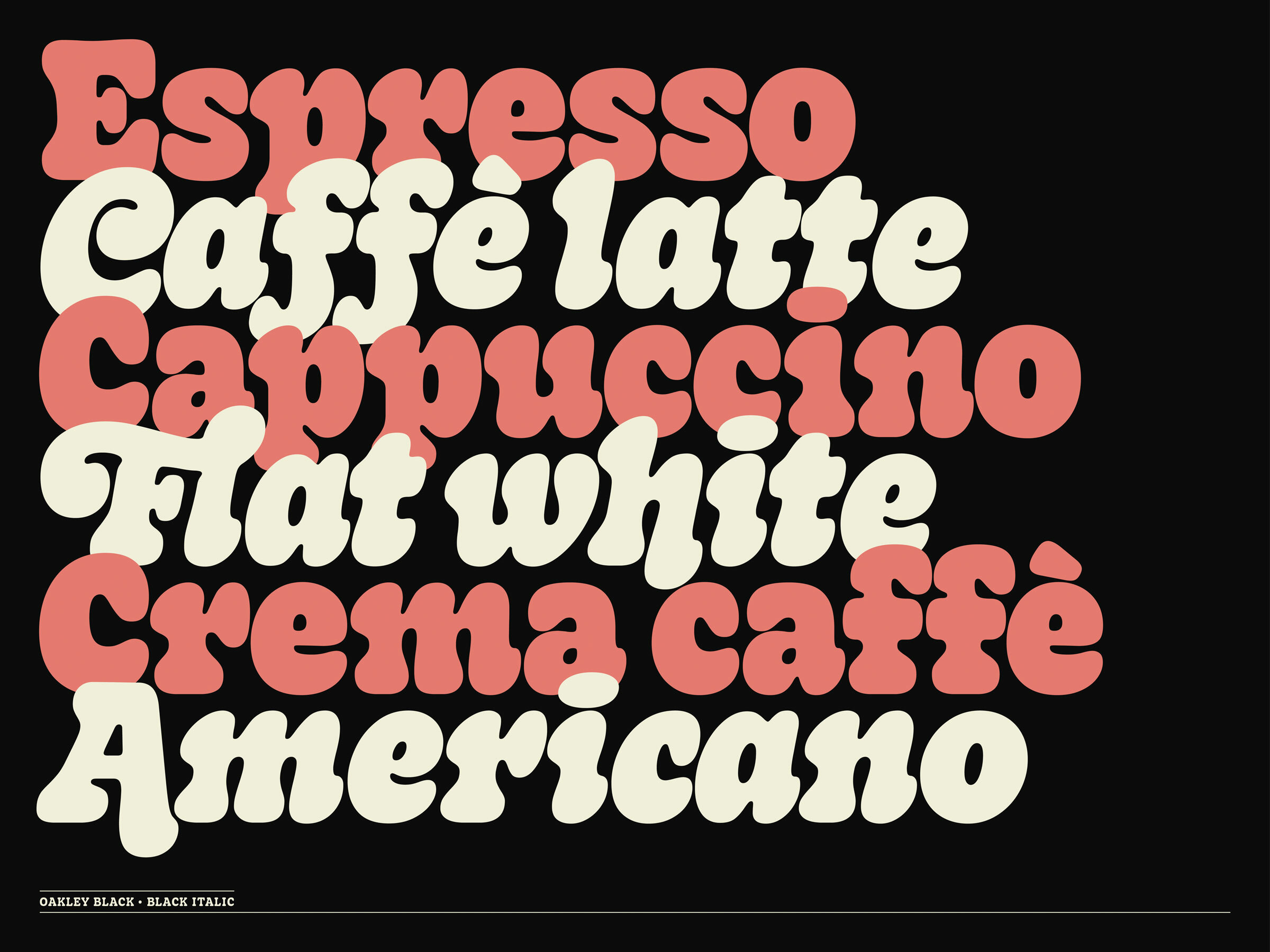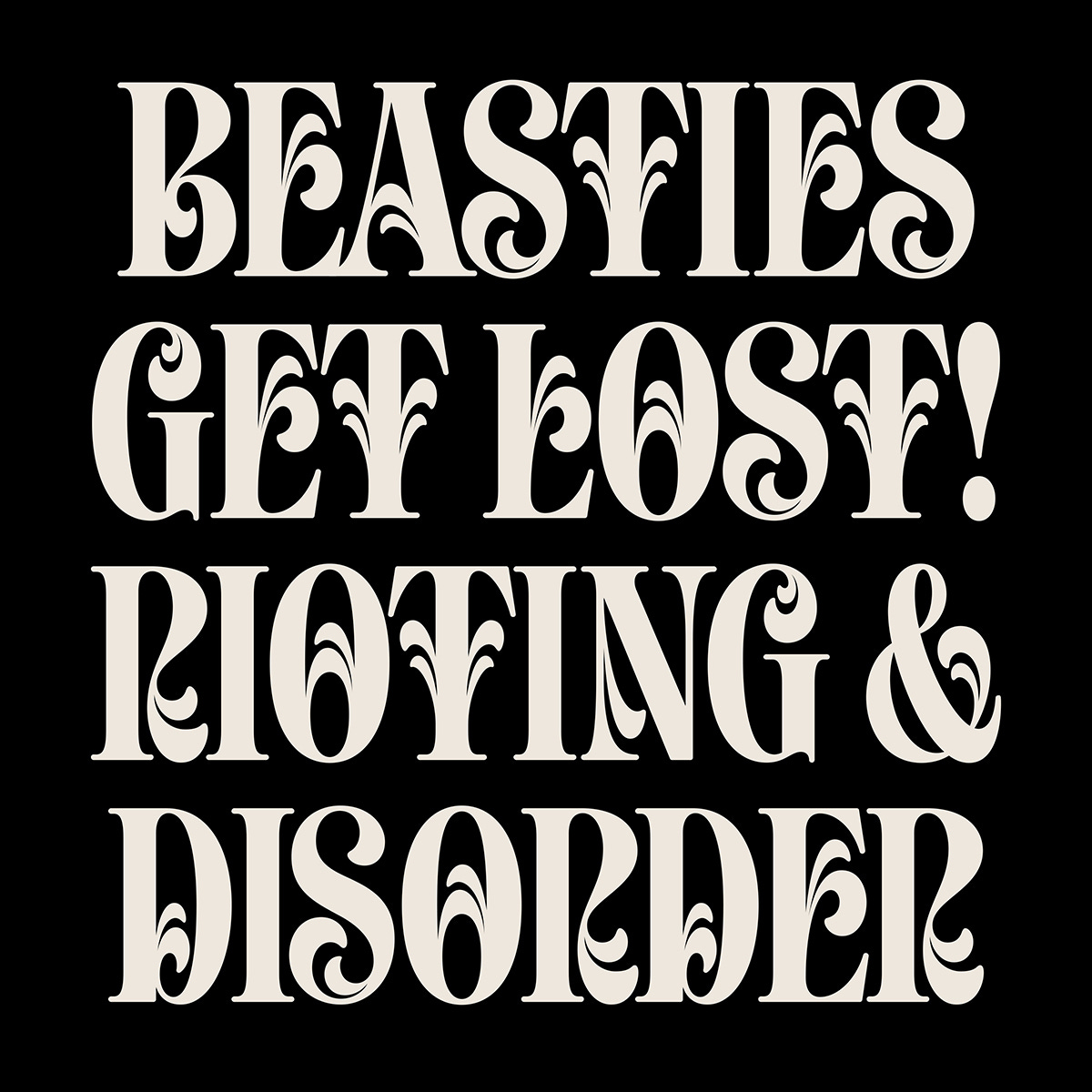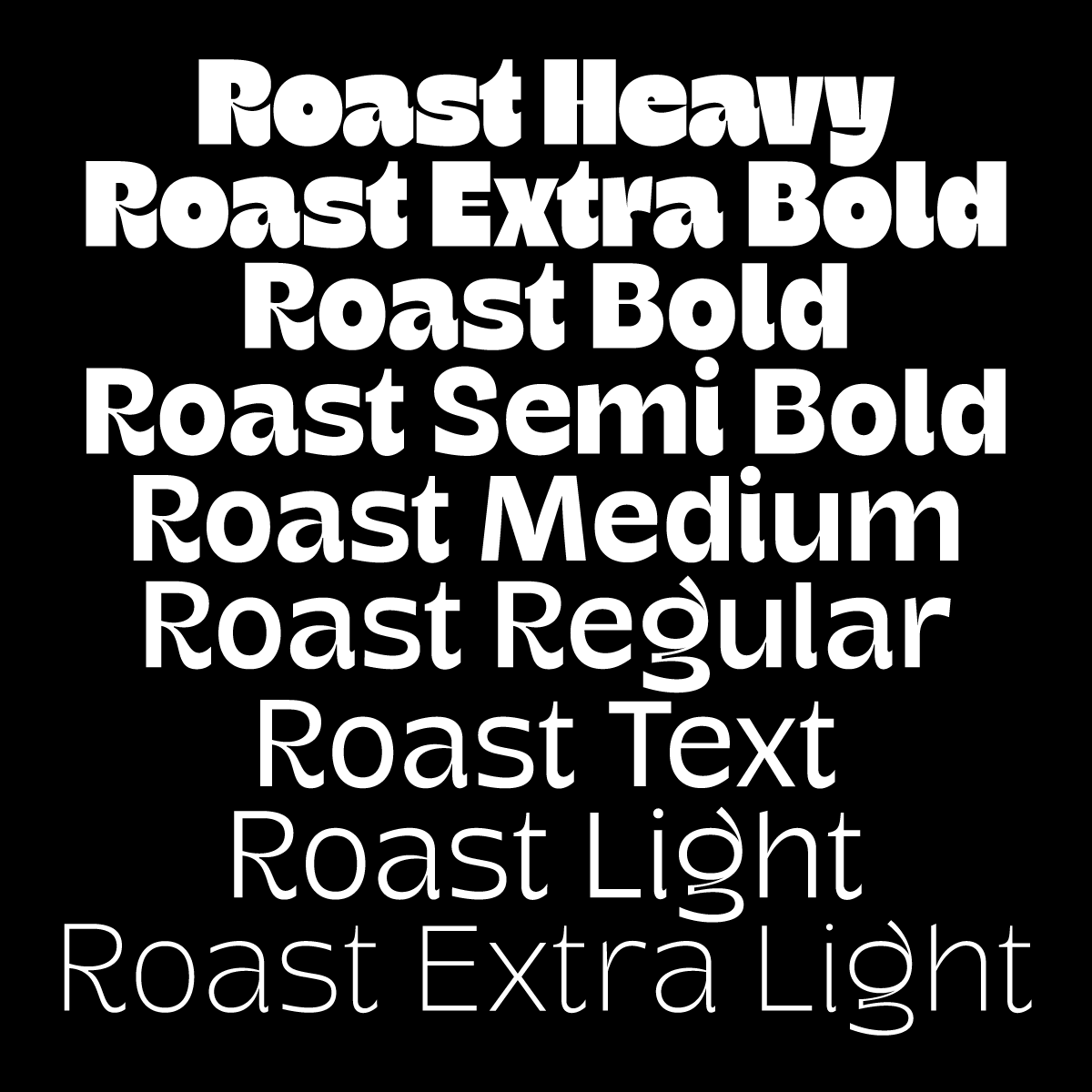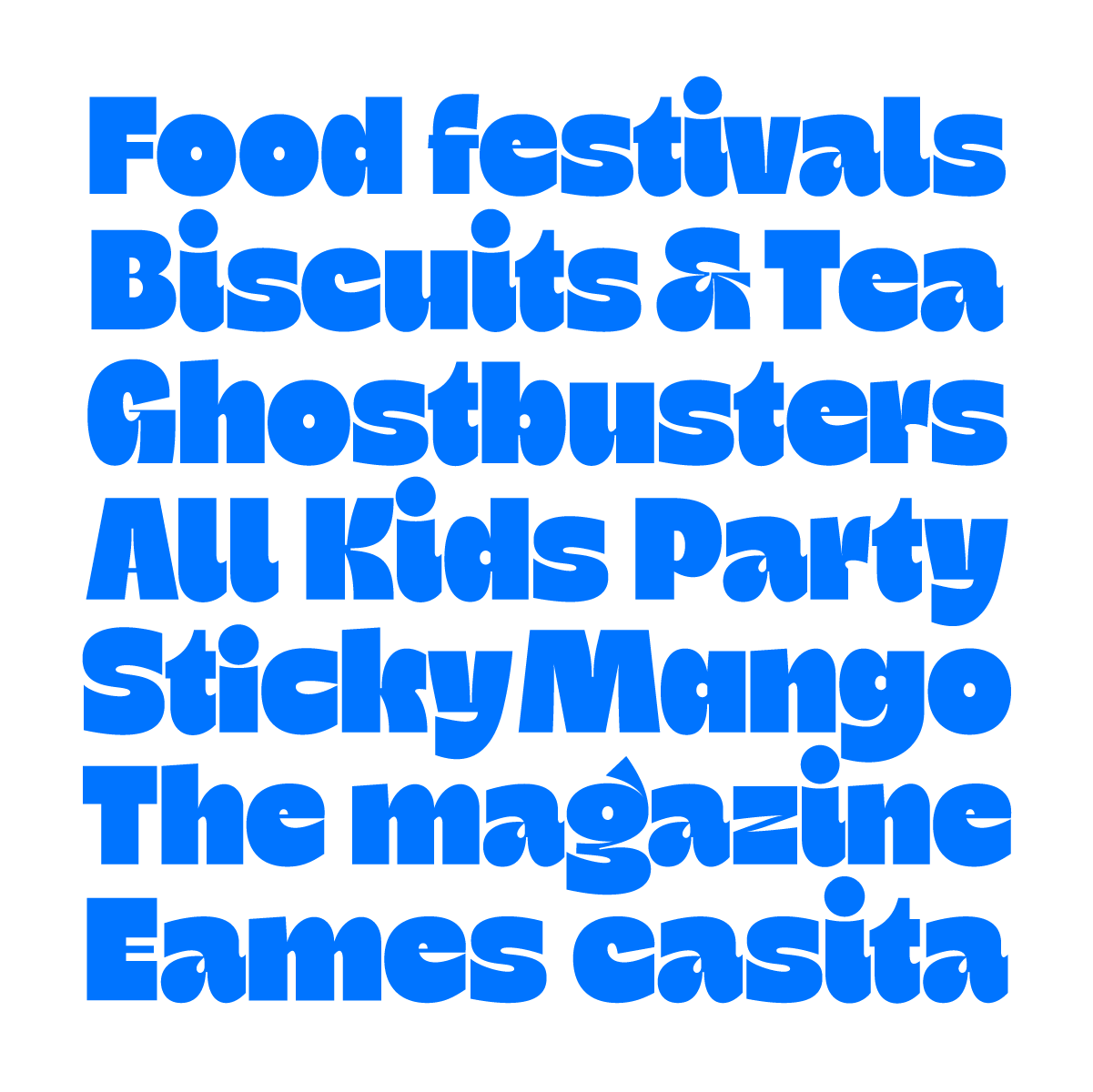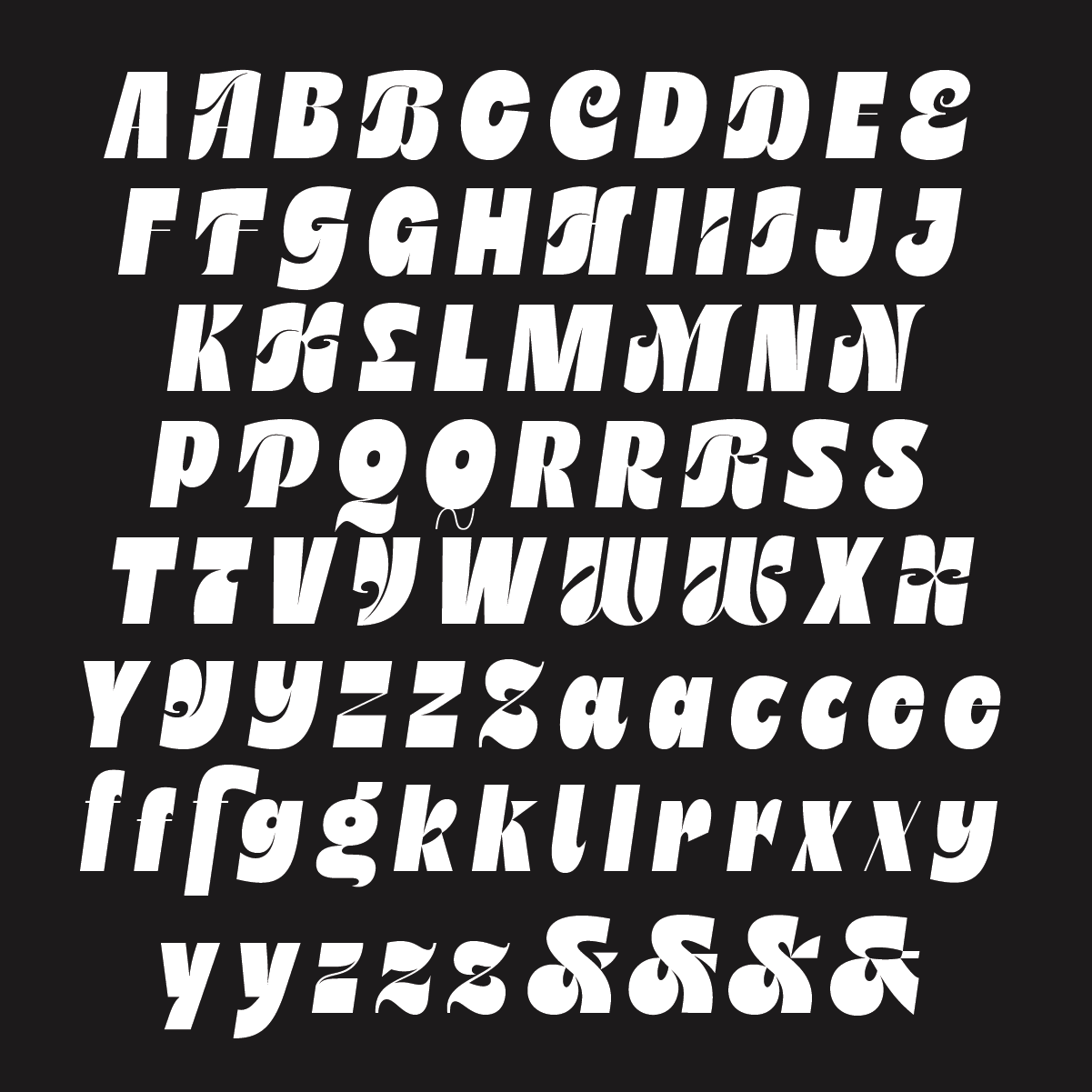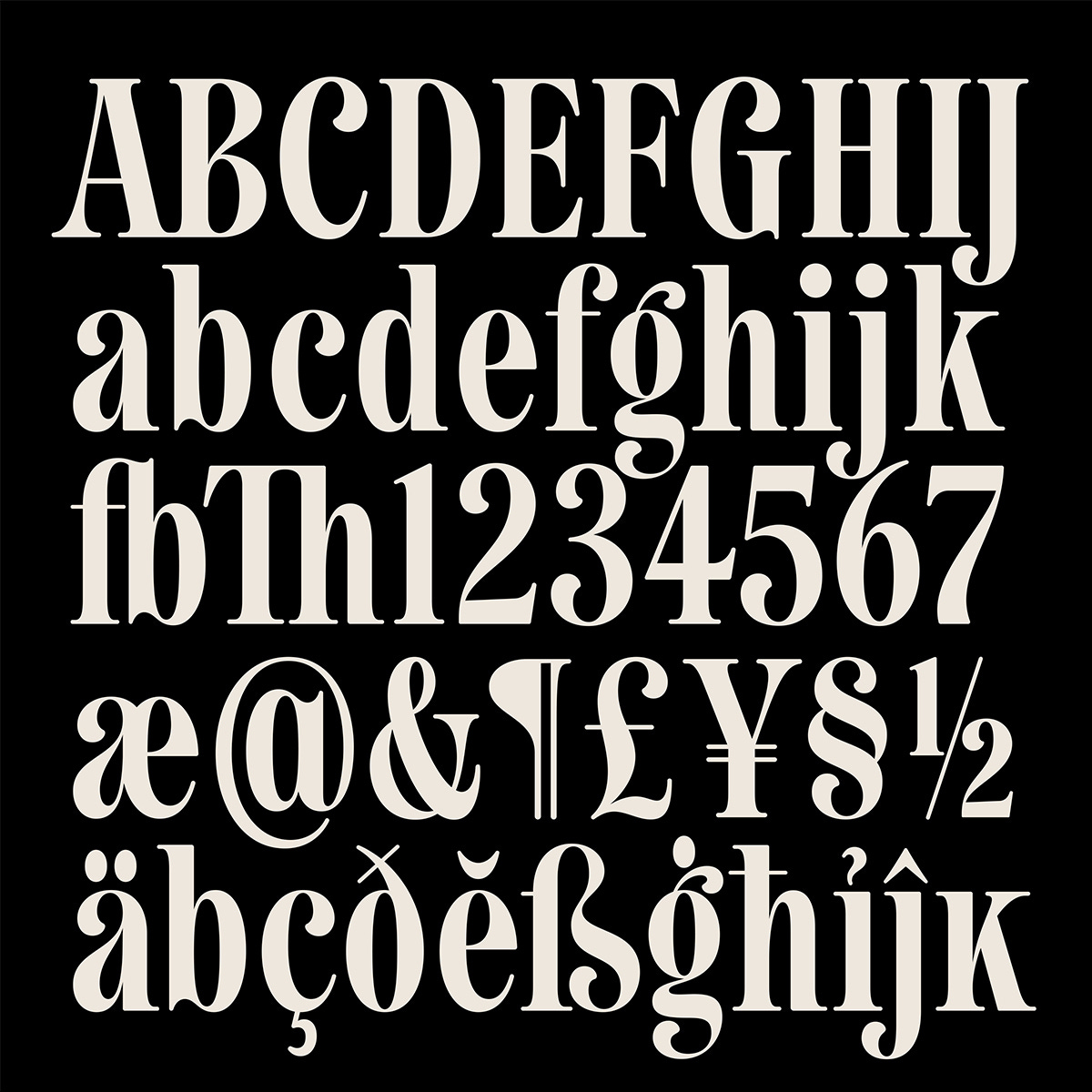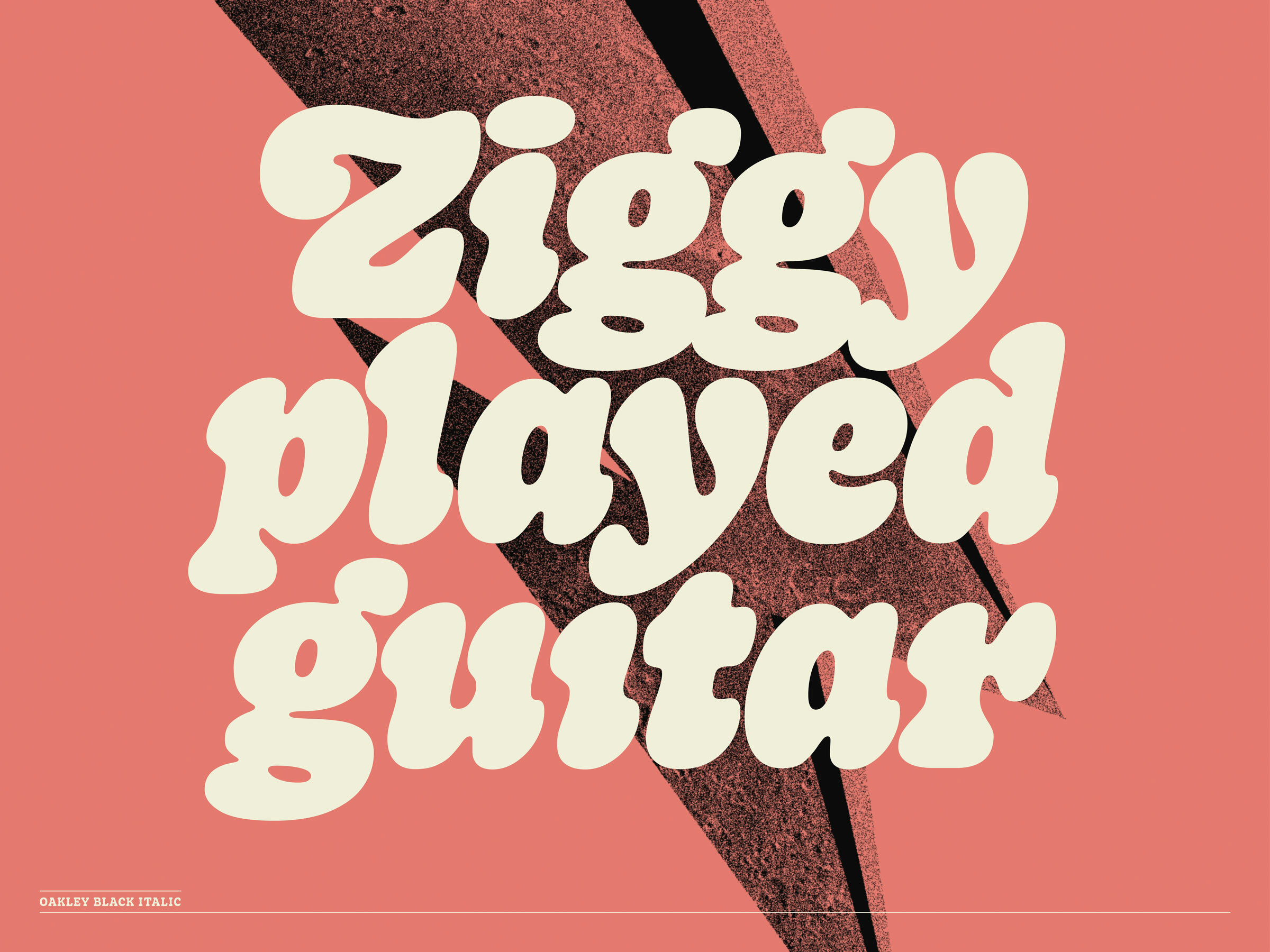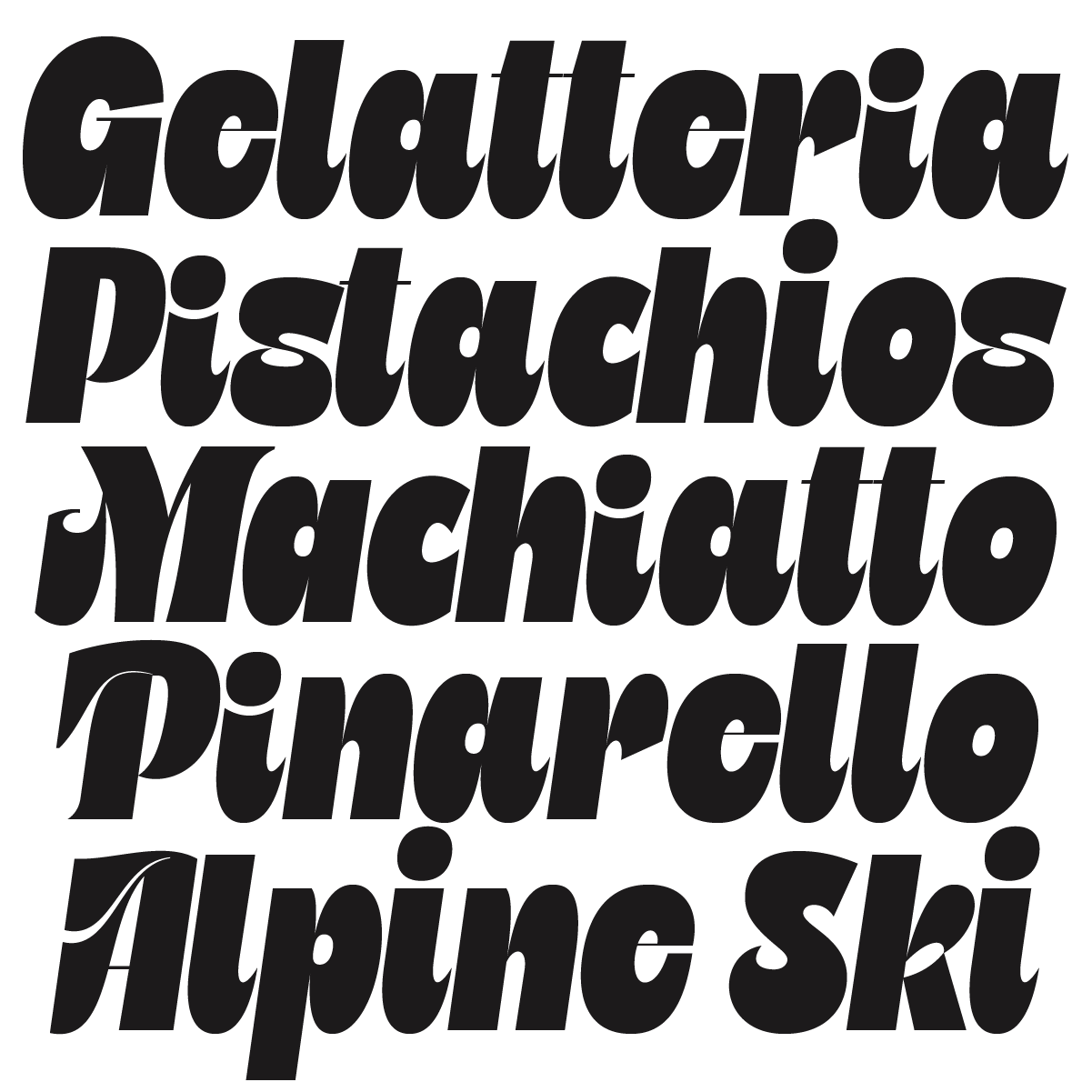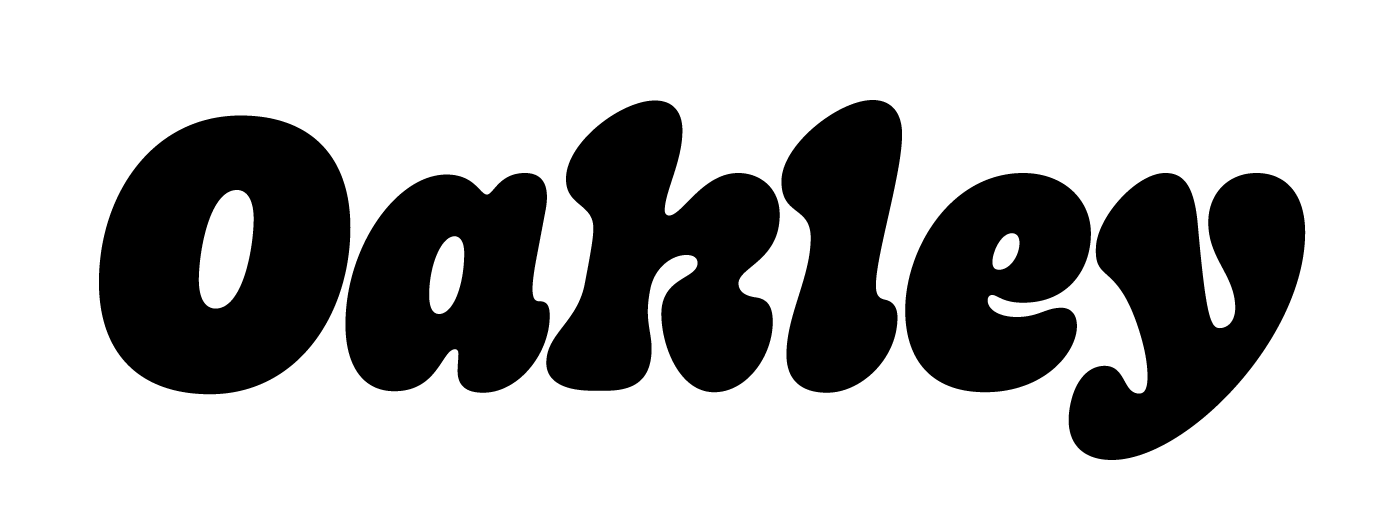
#1. Roast
Roast is a new typeface perfect for fun projects, packaging and branding. It comes in 9 weights + variable (available for the full family licenses). Latin+
#2: Goji
A single weight font full of character. It comes with normal and also swashy alternate capitals. Lot's of funky stuff so make sure you open up the Glyphs panel to discover everything.
#3: Oakley
Oakley is an homage to the expressive, soft and rounded old-style serif typefaces from the sixties and seventies. Its gentle and juicy serifs give the typeface the right amount of warmth and nostalgia.
#4: Newsagent
A bold, condensed serif font in a robust and formal style with some soft, modern flourishes and a set of super-decorative swash caps meant to be used together and kerned TIGHT.